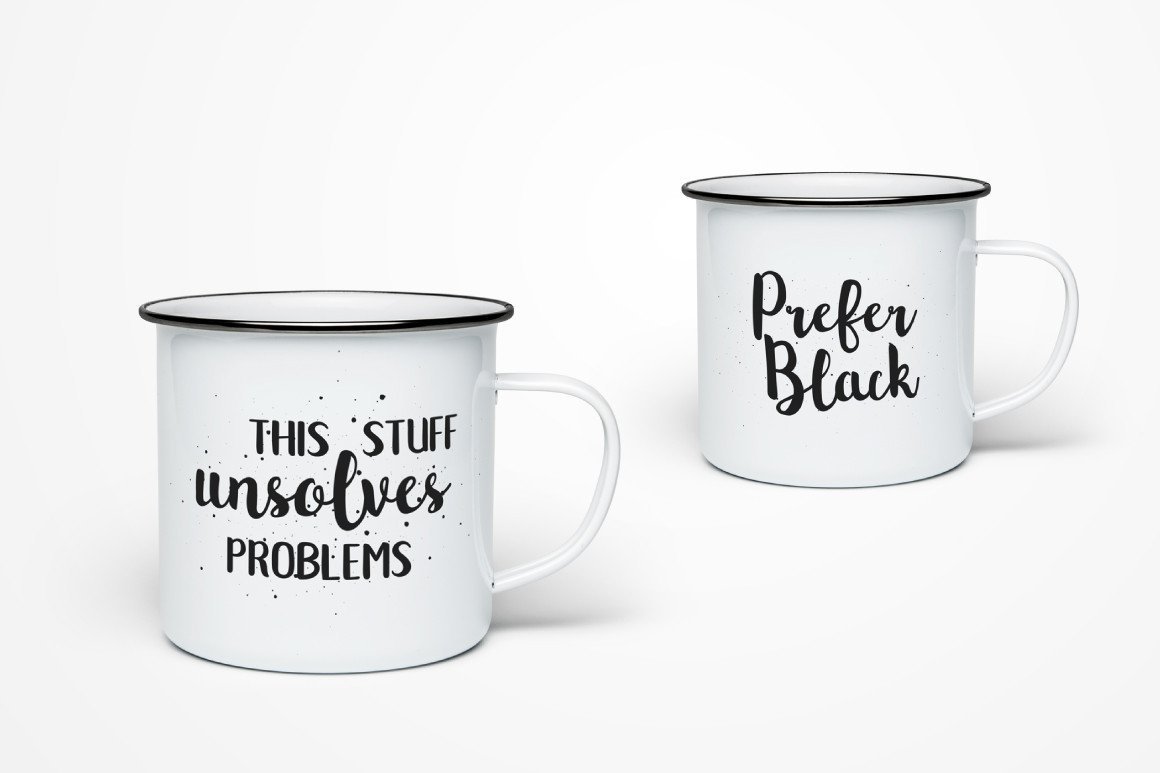
Free Northern Lights Font Duo
Introducing you to the absolutely beautiful free northern lights font duo. Pixelify has created this amazing and beautiful free typeface. You can create a professional designs with this fancy font.